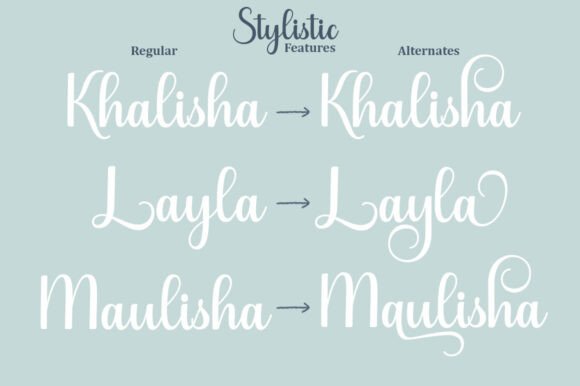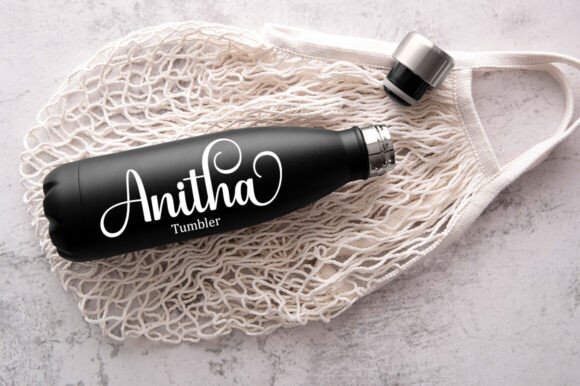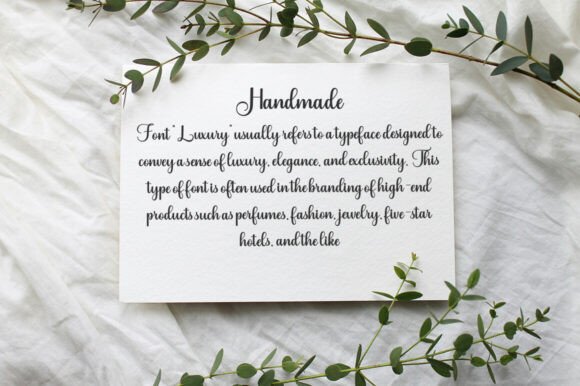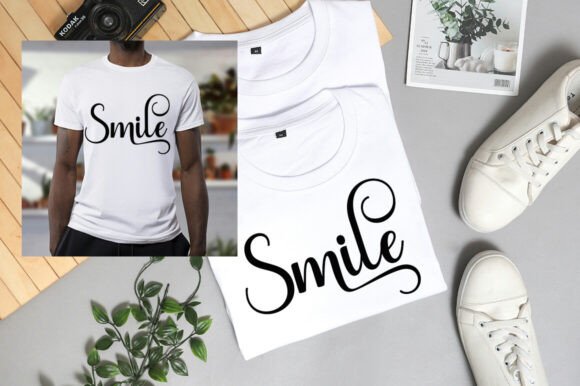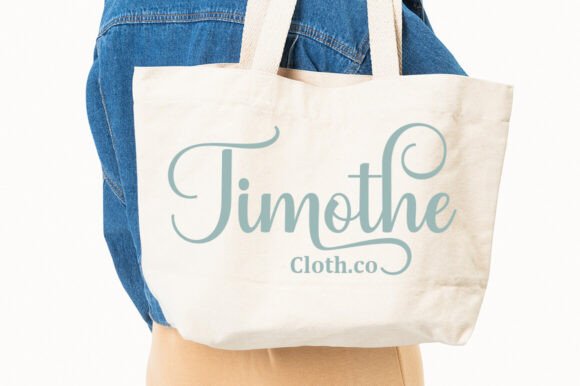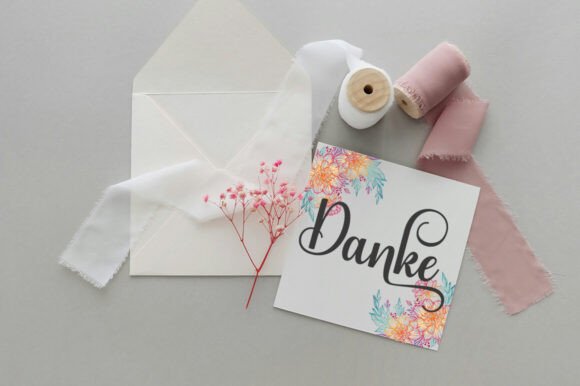
The Perfect Script for Your Special Day
As a designer, there’s nothing quite like the thrill of bringing a couple’s wedding vision to life. It’s a moment of great joy and creativity, where every detail counts. And that’s where the Authentic Hillyan Font comes in – a beautifully crafted script designed specifically for nuptial elegance.
Whether you’re a seasoned designer or just starting out, the Authentic Hillyan Font is a valuable addition to your toolkit. Its unique flair and refined elegance make it the perfect choice for wedding invitations, programs, and other stationery. With its smooth readability and captivating beauty, this font is sure to make your clients’ special day truly unforgettable.
So why settle for a generic font when you can add a touch of sophistication and charm with the Authentic Hillyan Font? Trust us, your clients – and their guests – will thank you.
Authentic Hillyan Font Key Features
- Font Family: Authentic Hillyan Font comes in a single font family, making it easy to use across various projects.
- Character Count: The font contains a large character set, including uppercase and lowercase letters, numbers, punctuation marks, and special characters.
- Unique Characteristics: Authentic Hillyan Font features a unique, handwritten style with subtle flair and texture, giving it a distinctive look.
Authentic Hillyan Font Review
Overall, I was quite impressed with the Authentic Hillyan Font. It’s a beautiful and elegant script font that would be perfect for various design projects, especially those requiring a touch of sophistication and refinement. ✨
Here are some of the things that I loved about this font:
- Unique and stylish design that sets it apart from other fonts in the same category
- Wide range of weights and styles available, making it suitable for various design applications
- Excellent legibility, making it easy to read even in smaller sizes
However, there are a few limitations that I noticed:
- Some of the characters may not be perfectly connected, which can affect the overall flow of text
- Not ideal for use in bold or italic text, as the font may not render well in these formats
Overall, I would give the Authentic Hillyan Font a solid 4 out of 5 stars. While it may have some limitations, its unique design and excellent legibility make it a great choice for various design projects. I would definitely consider using this font again in the future.
Authentic Hillyan Font is ideal for:
- Creating a vintage or retro aesthetic.
- Designing invitations, posters, or other promotional materials.
- Adding a unique touch to digital or print publications.